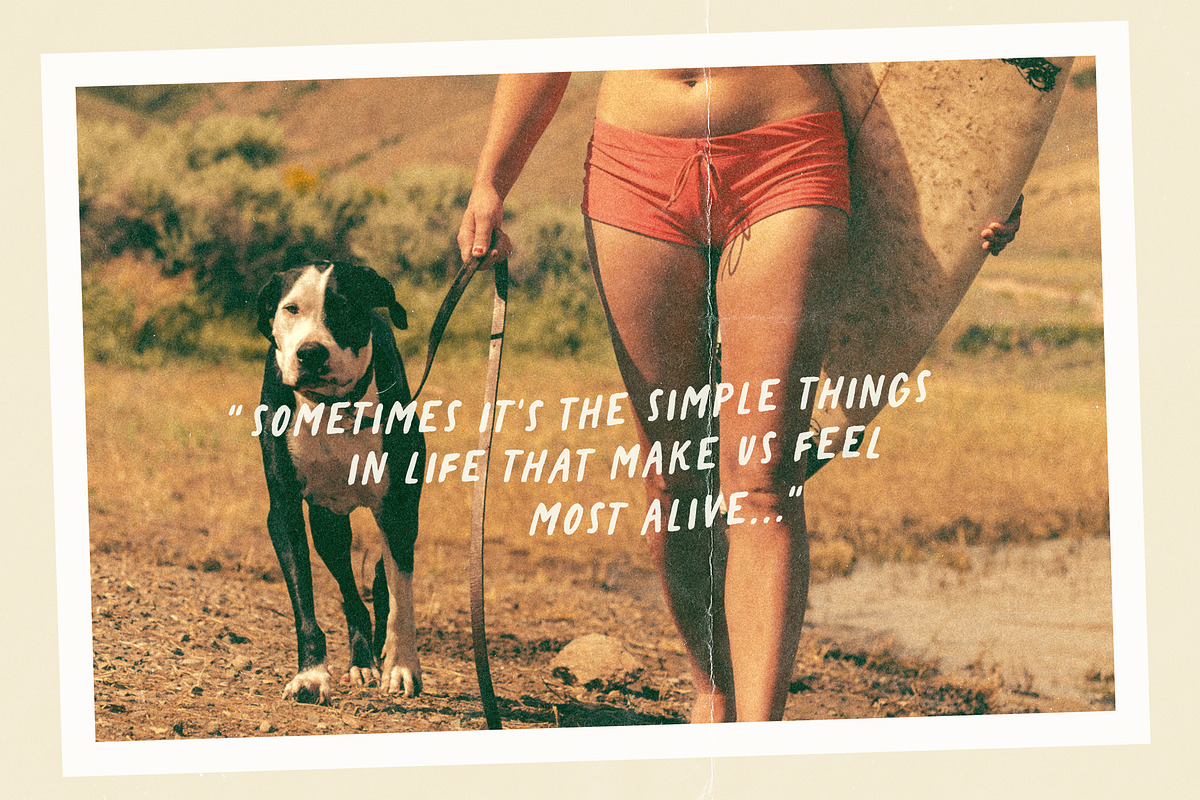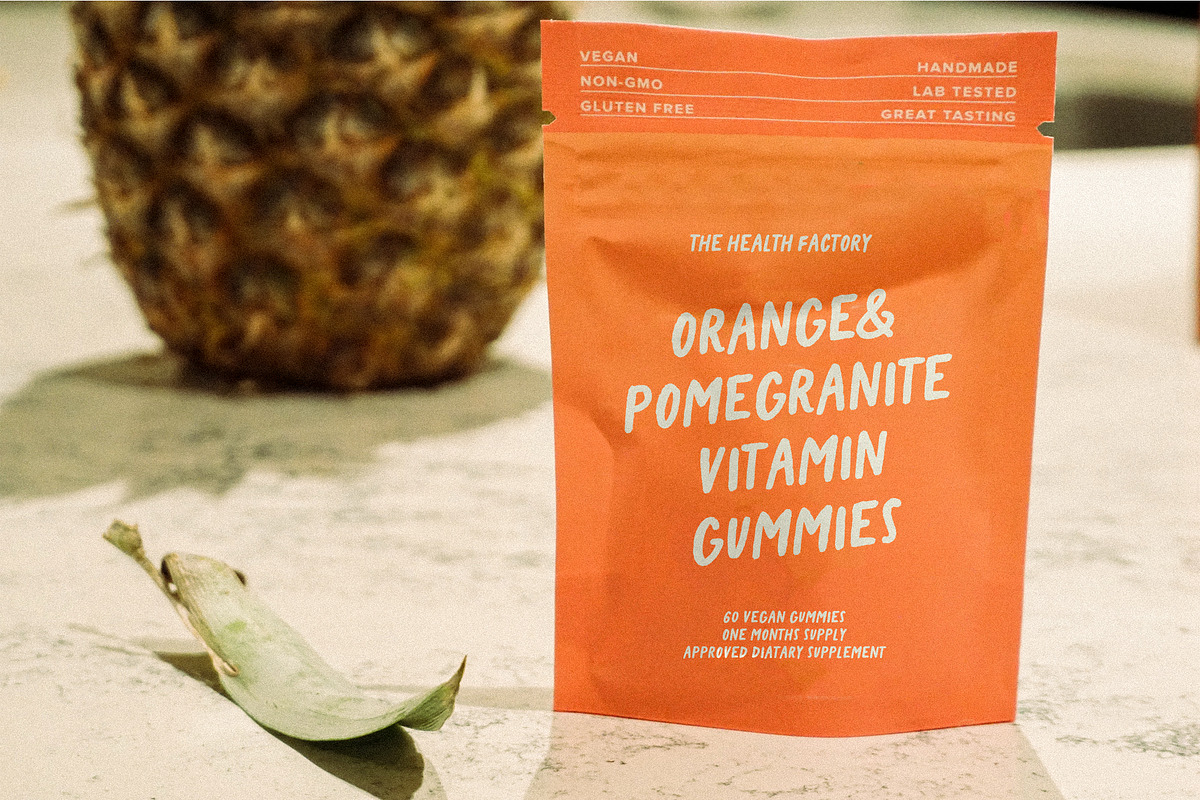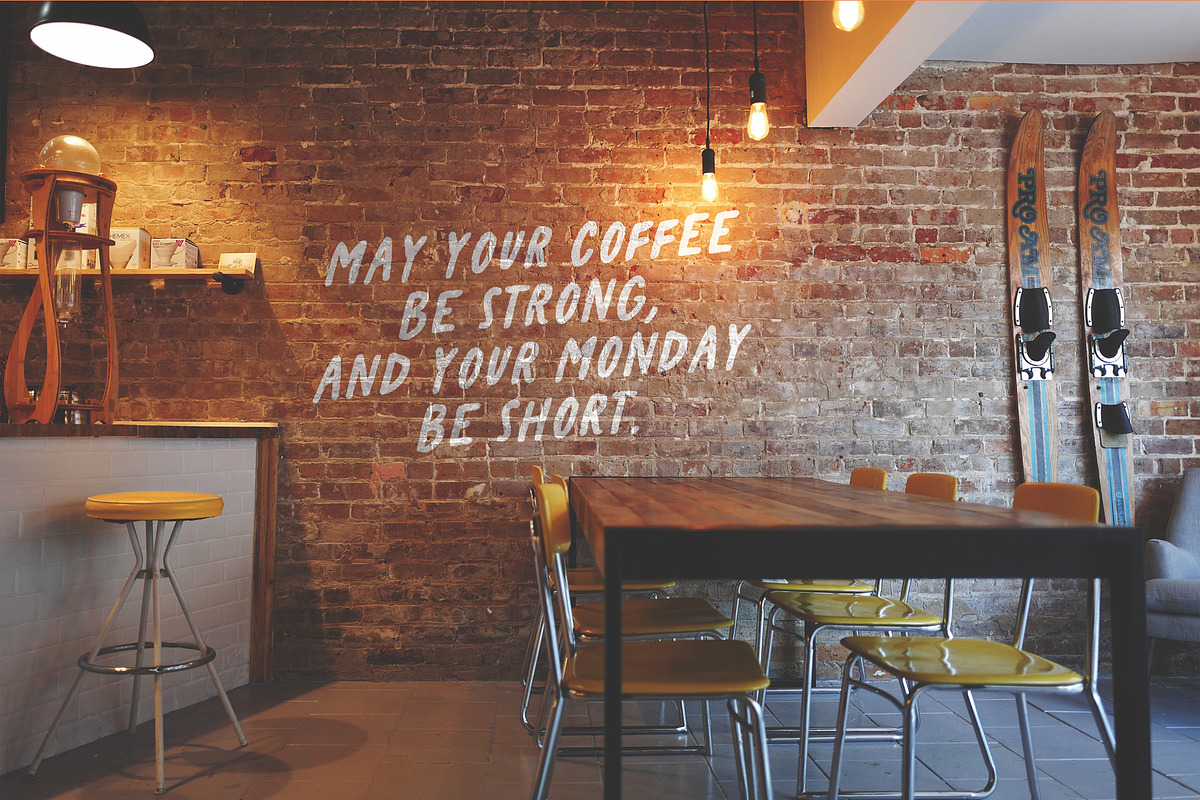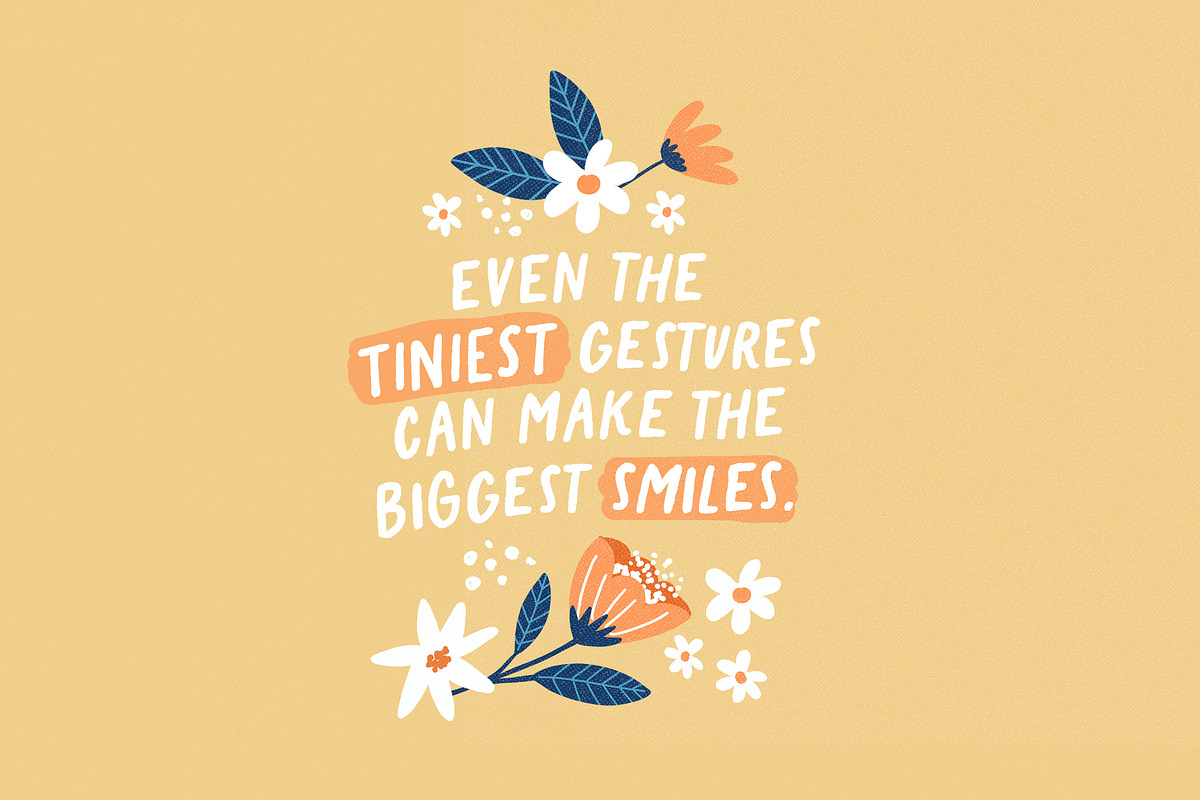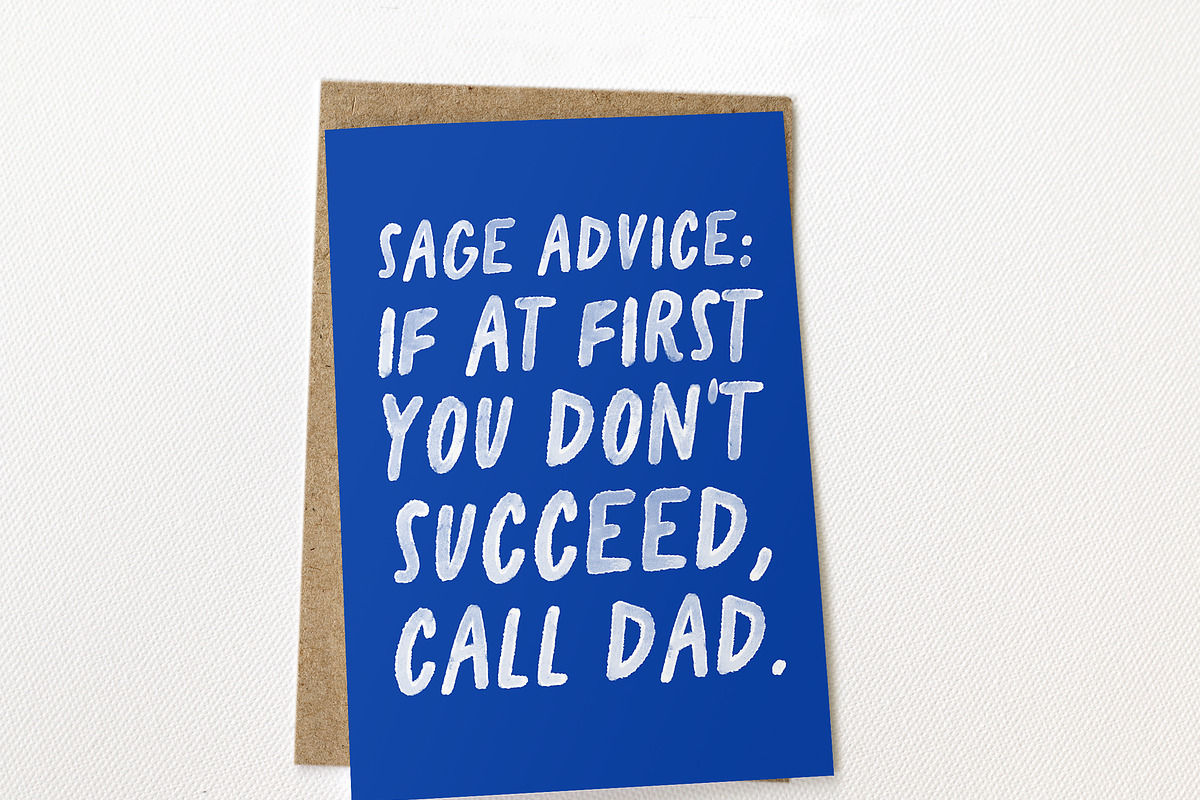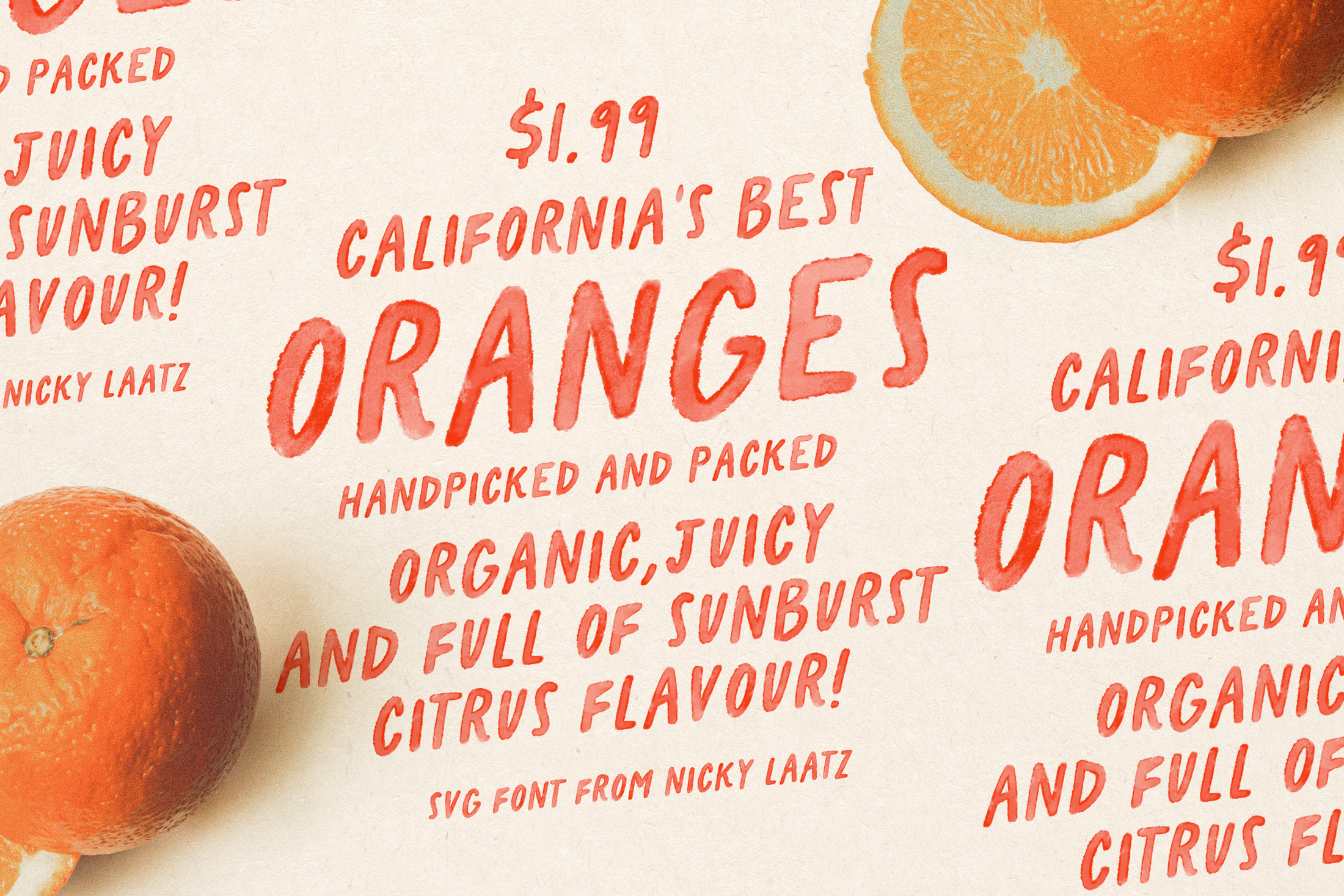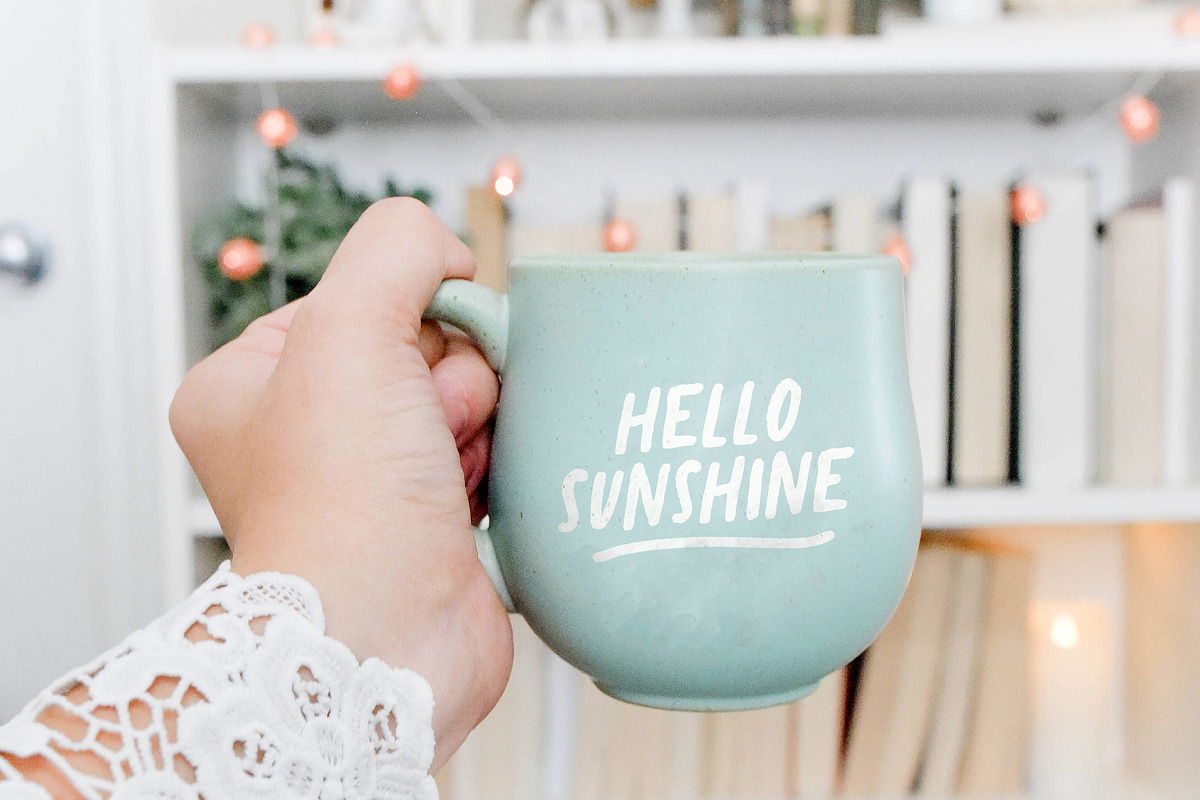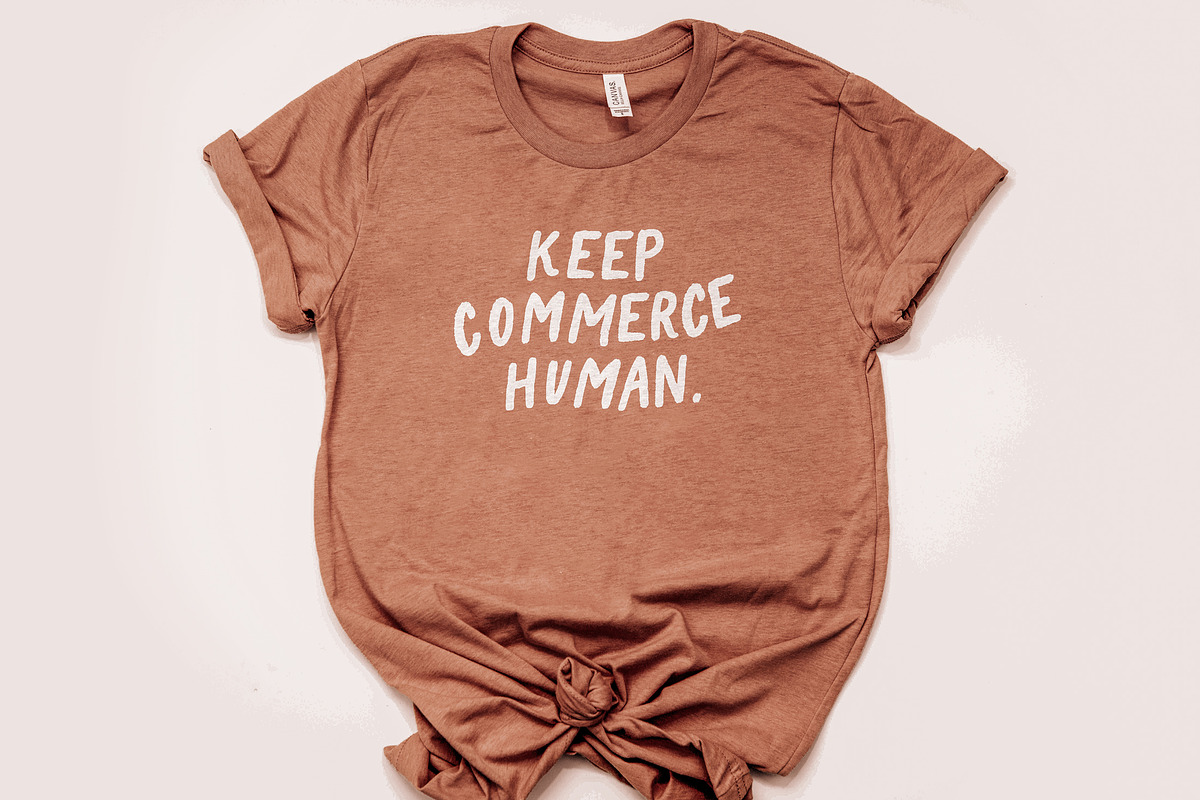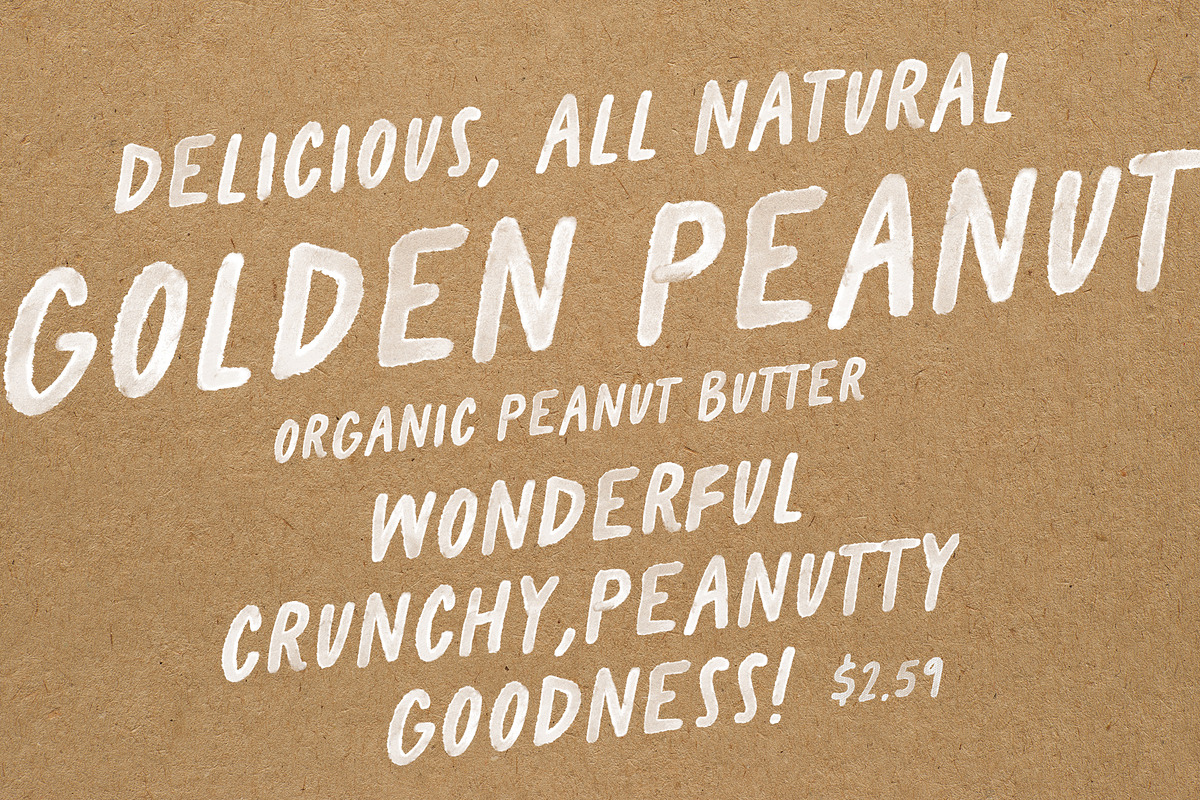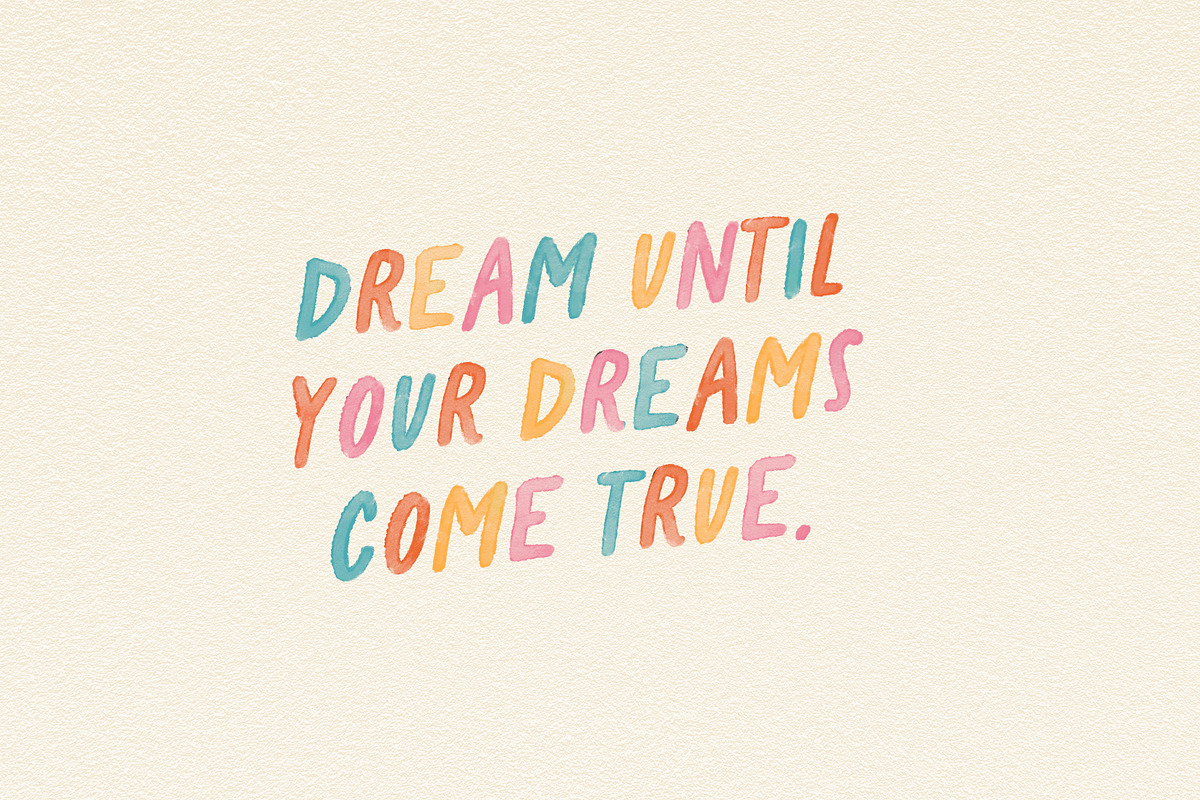
California Oranges SVG Font
Say hello to California Oranges! A fresh and friendly all-caps watercolour font!
The Letters can print to height of about 1.5 inches (in high resolution print documents) without losing quality. If you require anything larger I would suggest using the regular font, unless you do not mind a loss in quality ( such as on fabric printing, on billboards etc ).
Differing Letters for uppercase and lowercase characters.
A regular and more slanted version is included.
If the look is too diluted for you, just double the layer to make it less opaque.
If you would like a solid regular version of this font - it's included too!